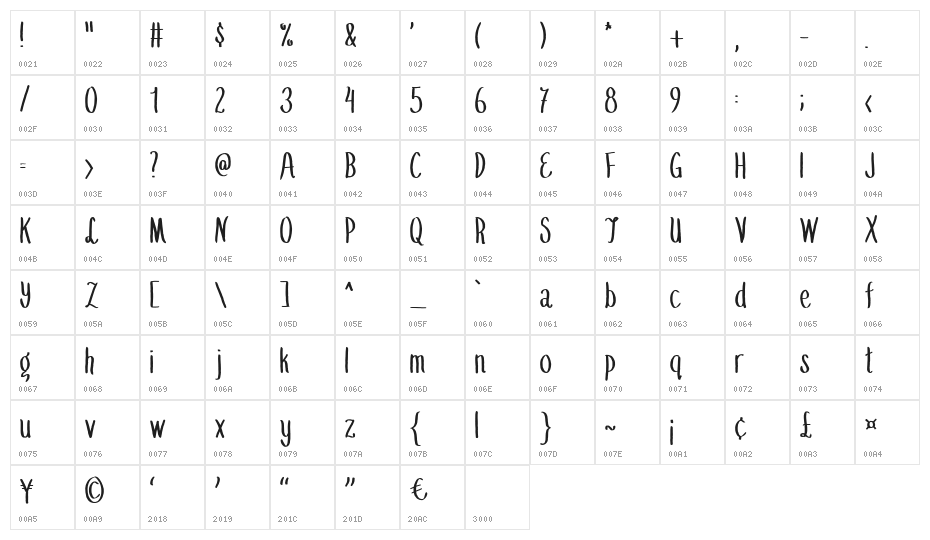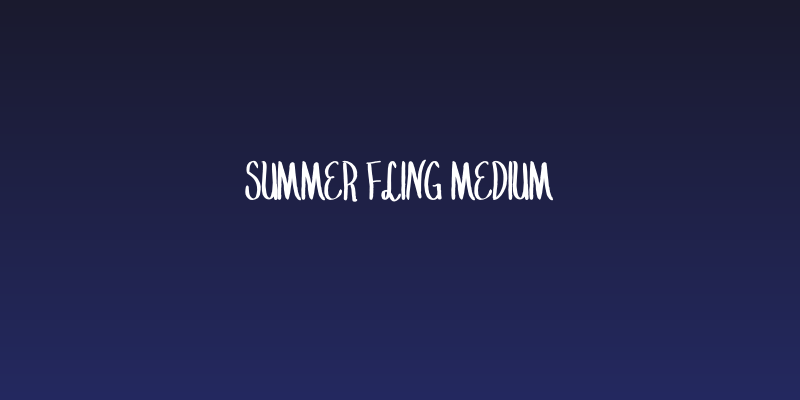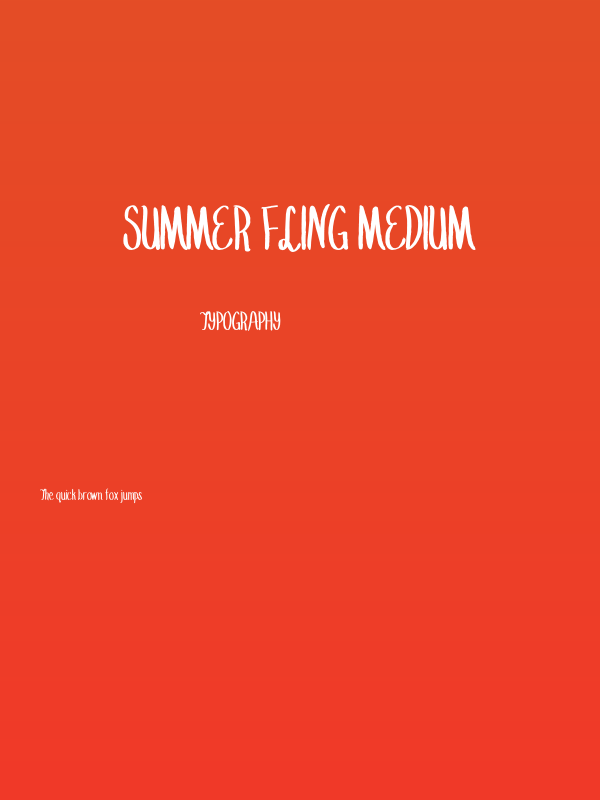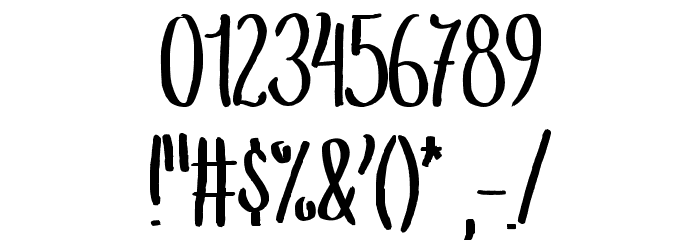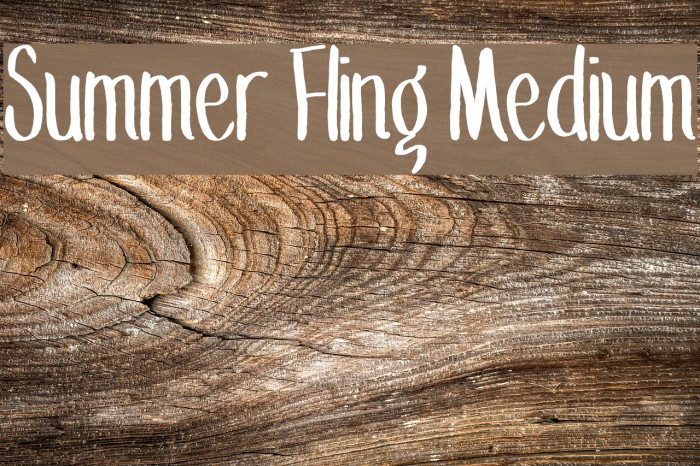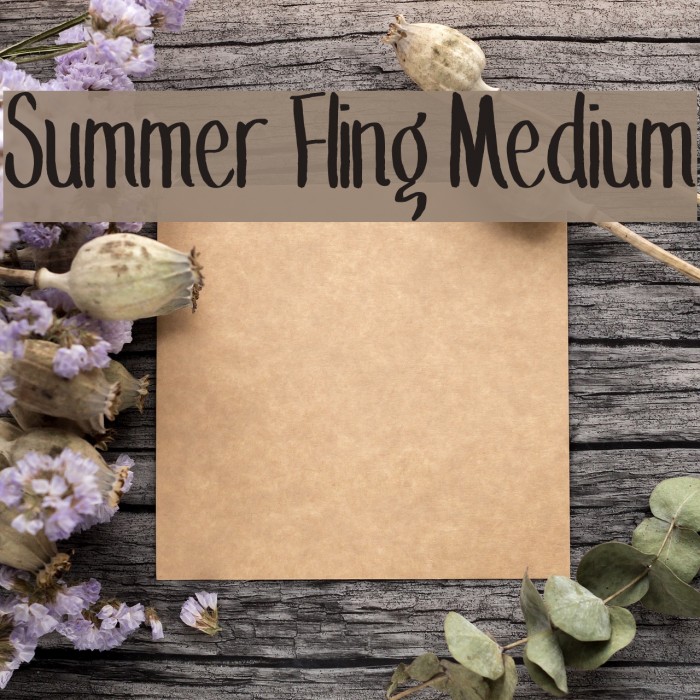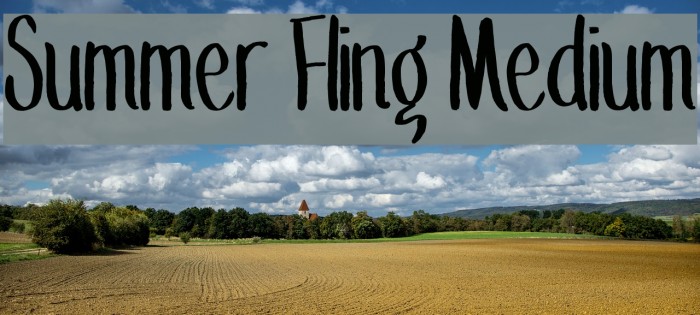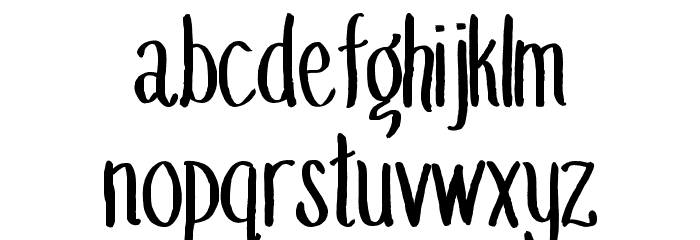
Summer Fling Medium Font
Summer Fling Medium Description
This font exudes a playful and casual vibe, characterized by its hand-drawn, brush-like strokes. The uppercase letters are bold and slightly elongated, giving them a dynamic and energetic appearance. The lowercase letters maintain a consistent flow, with some characters featuring unique loops and curves that add to the font's charm. Numbers are clear and legible, matching the overall style of the alphabet. Special characters are creatively designed, maintaining the whimsical and artistic feel. This font is perfect for projects that require a touch of personality and creativity.
| Proposed Projects | Ideal for greeting cards, posters, branding, and social media graphics. |